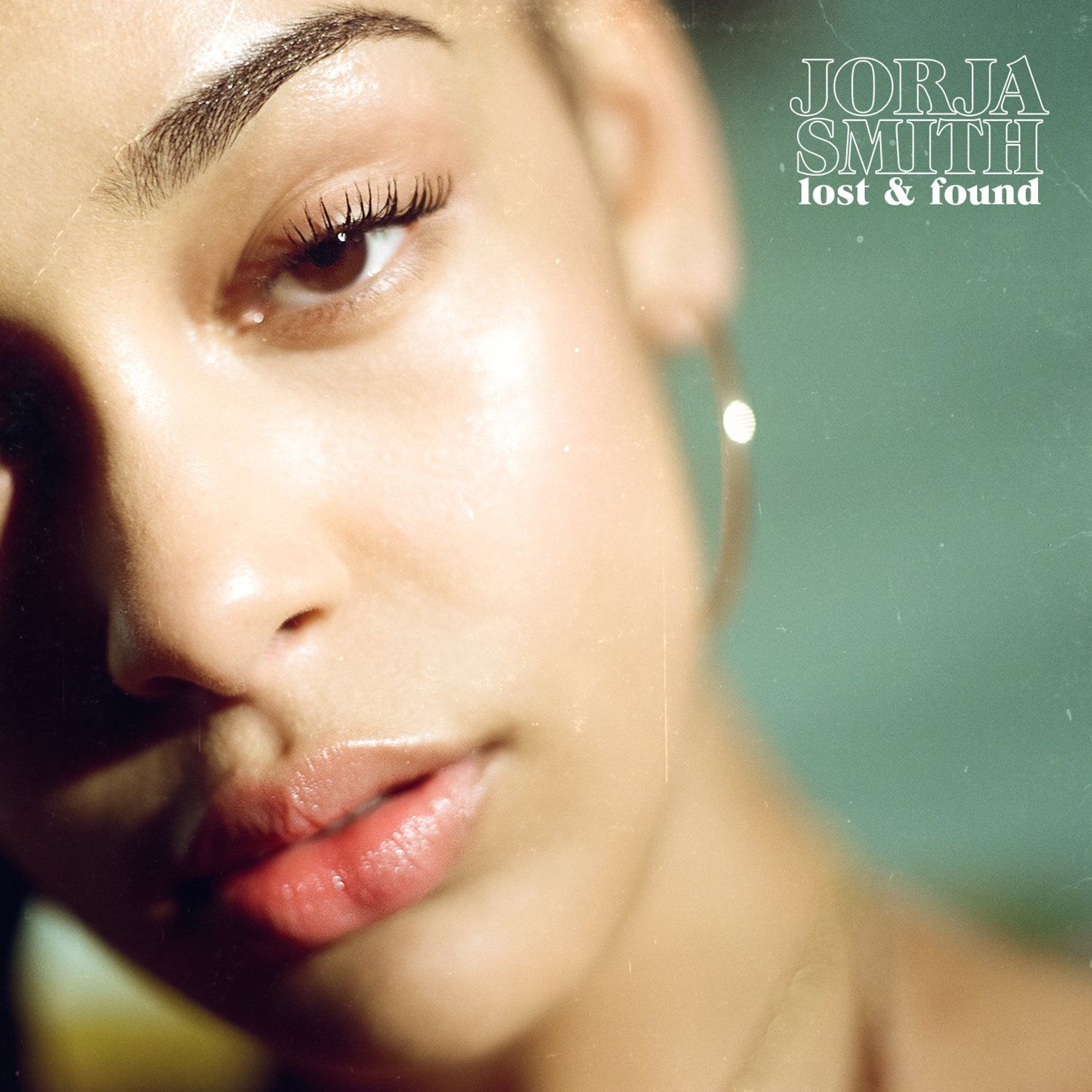
Jorja Smith Font
Fonts in UseJorja Alice Smith is a British singer-songwriter known for her soulful and introspective music. Her debut album "Lost & Found" was released in 2018 and featured a mix of R&B, soul, and jazz influences.
The album cover exclusively uses ITC Grouch, a high-contrast serif typeface based on Caslon's heavyweights, designed by Tom Carnase and Ronne Bonder in 1970. The album title is in lowercase, and the artist's name is outlined.